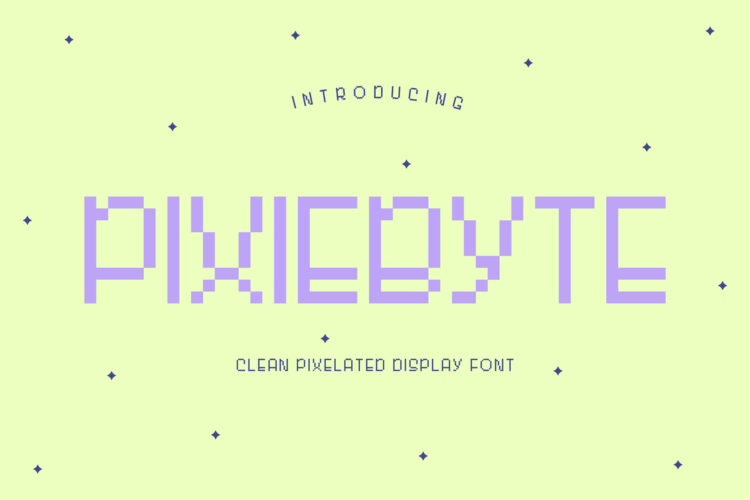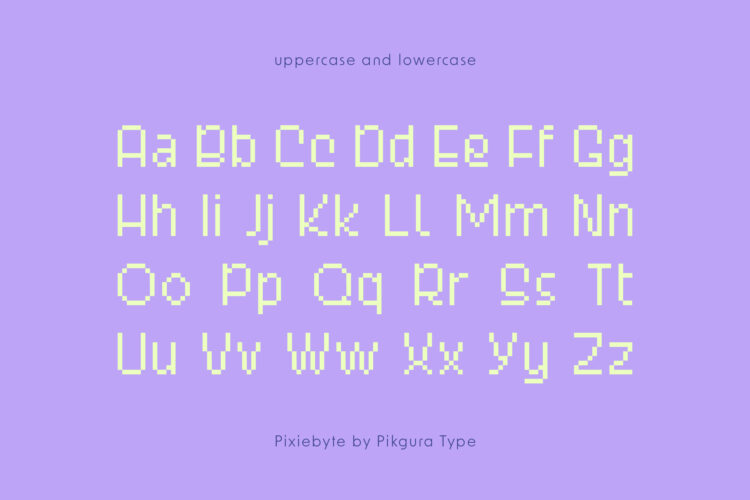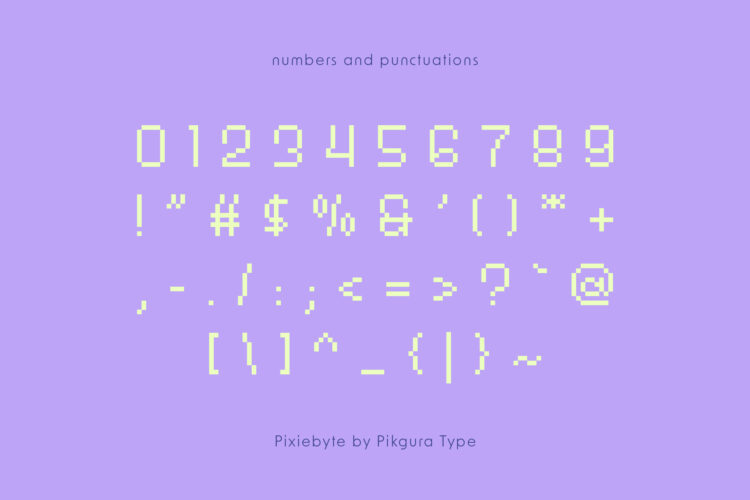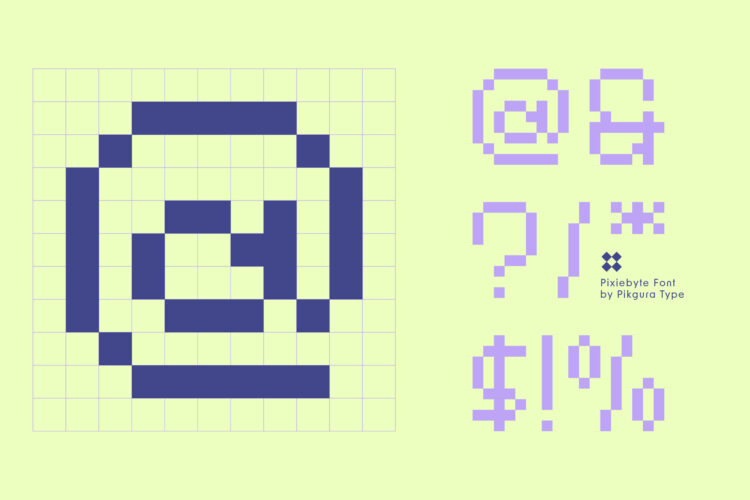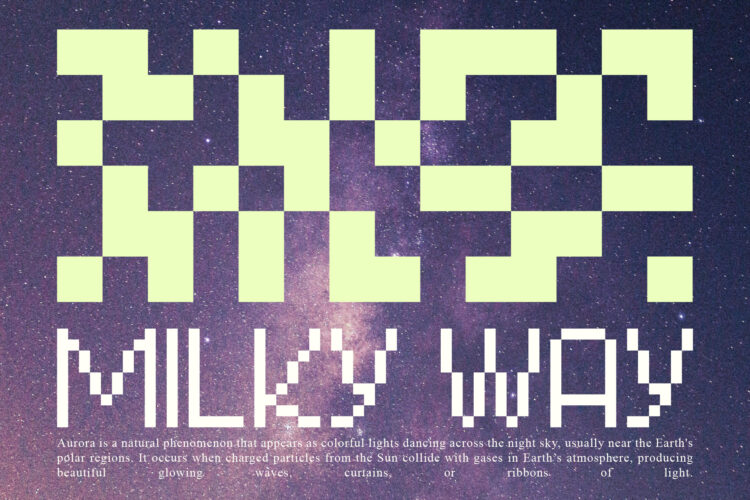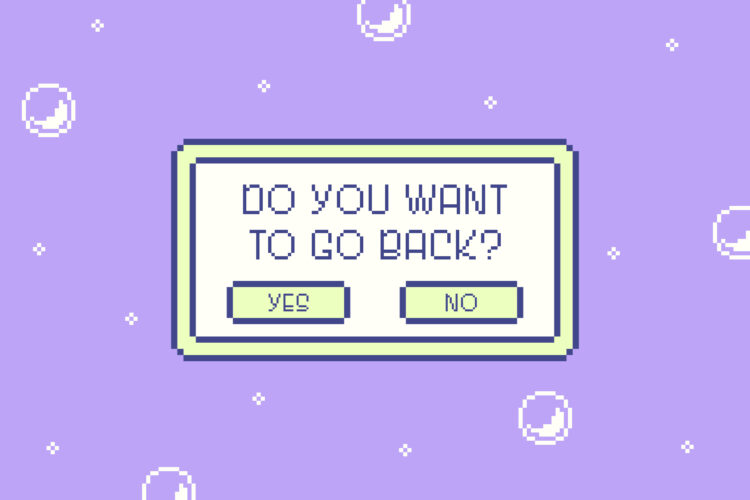
Meet Pixiebyte, a sleek pixel display font inspired by retro digital aesthetics and modern creative energy. With its clean pixel shapes, playful personality, and bold visual presence, this font is designed to make your projects look more distinctive and memorable.
Perfect for branding, posters, packaging, merchandise, gaming visuals, social media, websites, tech projects, and all kinds of creative designs that need a standout touch.
Whether you’re creating a futuristic concept, a nostalgic Y2K look, or a fun visual identity, Pixiebyte delivers a pixel style that feels fresh, bold, and full of character.
• Complete alphabet (uppercase & lowercase)
• Numbers
• Basic punctuation